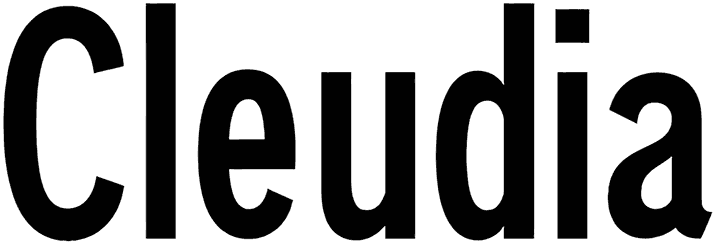
Cleudia Font
Some fonts are created to impress. Cleudia is created to charm. With its clean sans-serif construction, smooth curves, and contemporary personality, it strikes a balance between professionalism and friendliness that feels effortless. The letterforms are modern without being cold, making the typeface incredibly versatile across a wide range of creative projects.
Whether you’re building a brand identity, designing product packaging, creating social media graphics, crafting editorial layouts, or developing a modern website, this sans serif font brings clarity while still retaining character. Its subtle confidence allows the message to remain the focus while giving the overall design a polished and approachable feel. Sometimes the most effective typography isn’t the loudest font in the room; it’s the one that makes everything around it look better.